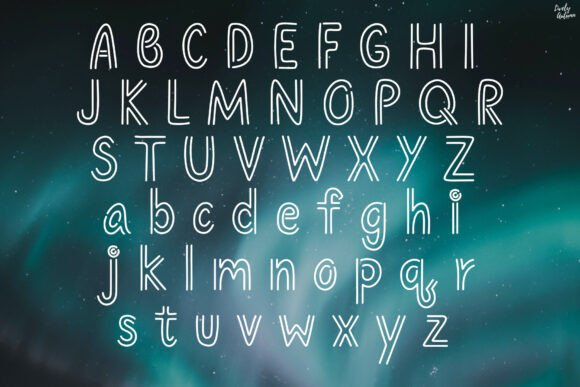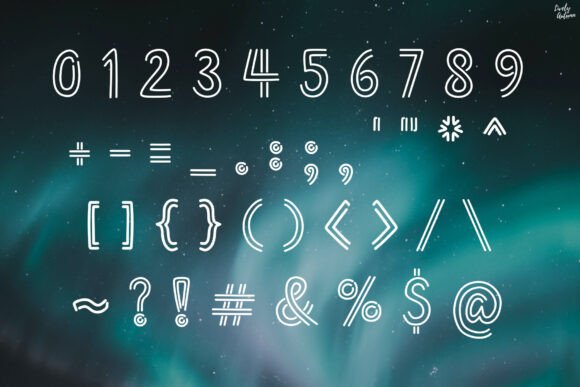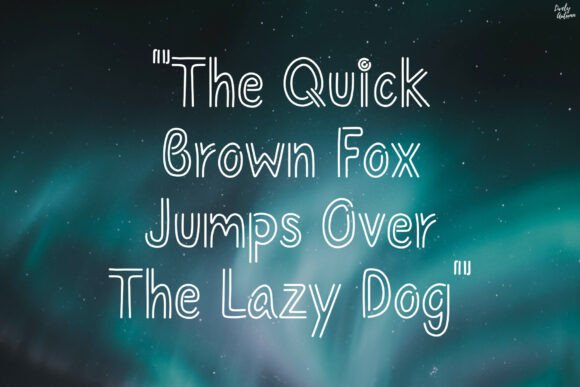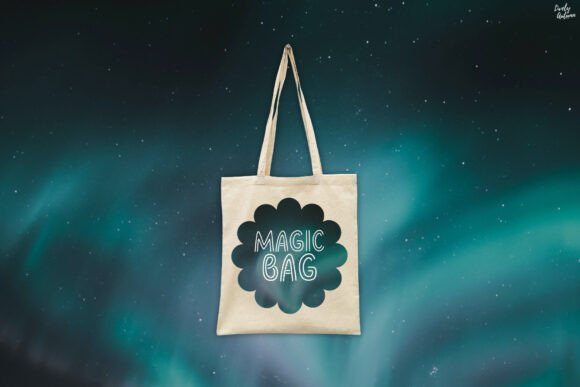
Aurora Font: Elevate Your Designs with a Cosmic Twist
Are you looking for a font that can add a touch of futurism and uniqueness to your designs? Look no further than the Aurora Font. This modern display font is perfect for designers and crafters who want to create stunning posters, science projects, space-themed designs, logos, and branding materials that stand out from the crowd.
What is Aurora Font?
Aurora Font is a modern display font that features a clean, futuristic design with a unique twist. The font boasts double-line strokes inside each letter, creating a glowing, cosmic effect that is reminiscent of the breathtaking northern lights. This distinctive feature sets Aurora apart from other fonts and makes it perfect for designs that require a touch of drama and flair.
Key Features of Aurora Font
- Clean and Futuristic Design: Aurora Font features a sleek and modern design that is perfect for digital and print projects.
- Double-Line Strokes: The font’s unique double-line strokes inside each letter create a glowing effect that adds a cosmic touch to any design.
- Versatile: Aurora Font is suitable for a wide range of design projects, including posters, science projects, space-themed designs, logos, and branding materials.
- Playful yet Sleek: The font’s playful style makes it perfect for designs that require a touch of whimsy, while its sleek design ensures that it remains professional and sophisticated.
Aurora Font is an excellent choice for designers and crafters who want to create unique and eye-catching designs. The font’s versatility makes it perfect for a wide range of projects, from digital designs to print materials. Whether you’re creating a poster, a logo, or a branding material, Aurora Font is sure to add a touch of cosmic flair to your design.
Use Cases for Aurora Font
- Posters: Create stunning posters that grab attention with Aurora Font’s unique and eye-catching design.
- Science Projects: Add a touch of futurism and sophistication to your science projects with Aurora Font’s clean and modern design.
- Space-Themed Designs: Create designs that are out of this world with Aurora Font’s cosmic twist.
- Logos and Branding: Use Aurora Font to create unique and memorable logos and branding materials that stand out from the crowd.
Tips for Using Aurora Font
To get the most out of Aurora Font, here are a few tips to keep in mind:
- Experiment with Colors: Aurora Font’s glowing effect is perfect for designs that feature bright and bold colors.
- Play with Sizes: The font’s unique design makes it perfect for large and small sizes, so don’t be afraid to experiment with different sizes.
- Combine with Other Fonts: Aurora Font pairs well with other fonts, so try combining it with a sans-serif font for a modern look.
| Font Name | Aurora Font |
| Author | LivelyAutumn 11.11 |
Aurora Font is a unique and versatile font that is perfect for designers and crafters who want to add a touch of futurism and whimsy to their designs. With its clean and modern design, double-line strokes, and glowing effect, Aurora Font is sure to elevate your designs and make them stand out from the crowd. Whether you’re creating posters, science projects, space-themed designs, logos, or branding materials, Aurora Font is an excellent choice.